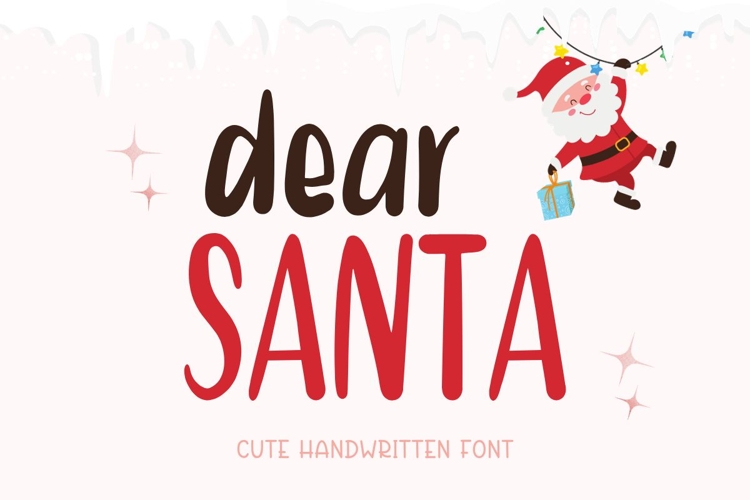
Dear Santa is a fun and slightly quirky handwritten font. With its casual charm, this font is perfect for a wide pool of design ideas. Perfect for creating a wide variety of new designs to match products such as banners, content, mugs, cards, shirts, stationery, social media posts, and more!